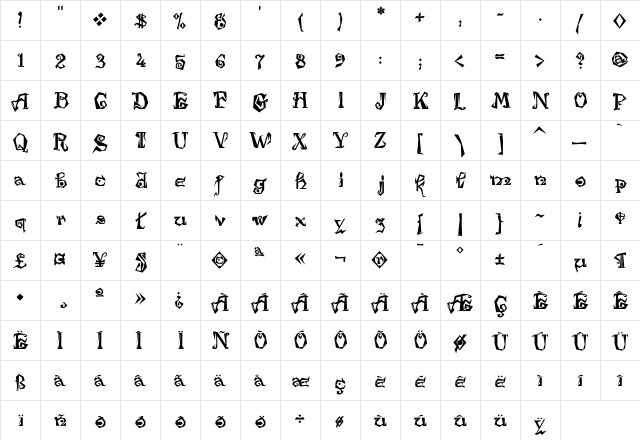
Damosel Regular
Design Context for Damosel Typeface
Damosel is a composed and adaptable typeface that performs quietly and consistently across a wide range of design contexts.